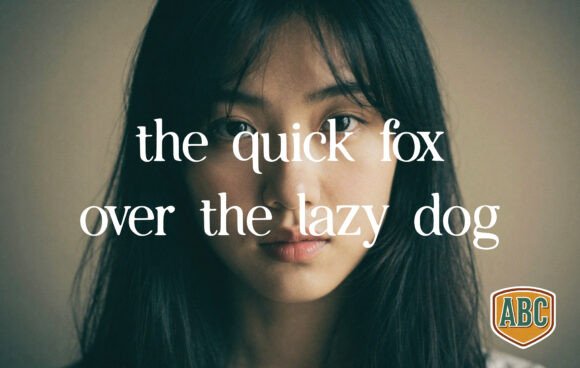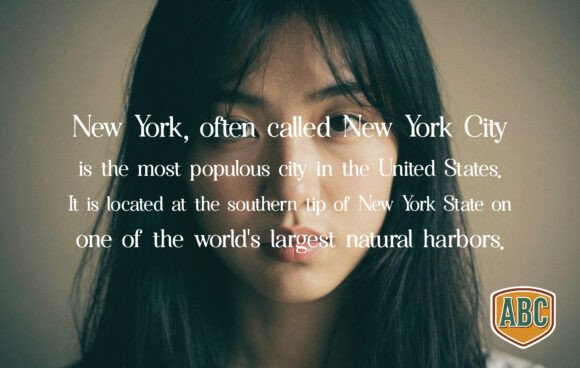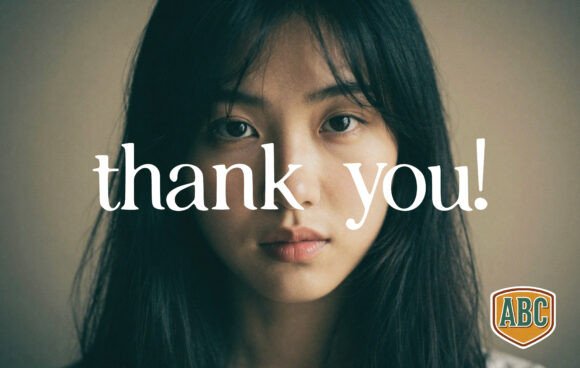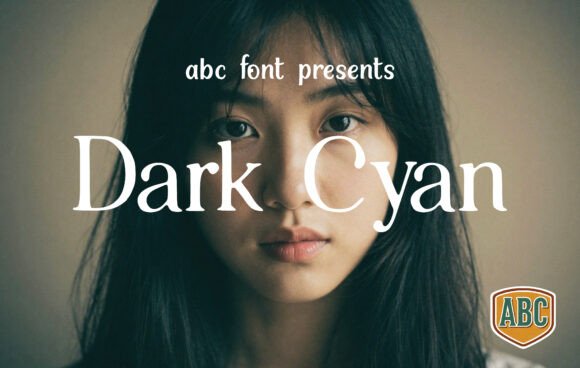
Elevate Your Visual Storytelling with Dark Cyan Font
In the world of typography, a well-crafted font can elevate your visual storytelling and make your message shine. Introducing Dark Cyan, a refined serif font that embodies modern sophistication and timeless grace. This exceptional typeface is designed to provide a polished, high-fashion look, making it an ideal choice for designers and crafters seeking to convey a sense of intelligence and understated luxury.
The Art of Elegance: Dark Cyan’s Design
Dark Cyan features elegant, high-contrast strokes and delicate serifs that provide a sophisticated aesthetic. The font’s balanced proportions and sharp details ensure a professional look, whether used in digital headers or traditional print media. The refined design of Dark Cyan makes it perfect for editorial designs, luxury branding, and any project requiring a touch of elegance.
Key Features of Dark Cyan
- Elegant Serif Design: Dark Cyan boasts a classic serif design with a modern twist, featuring high-contrast strokes and delicate serifs.
- Balanced Proportions: The font’s balanced proportions ensure a harmonious and professional aesthetic, making it suitable for a wide range of applications.
- Sharp Details: Dark Cyan’s sharp details provide clarity and impact, making it perfect for editorial designs, luxury branding, and high-end projects.
- Versatility: This refined serif font is suitable for both digital and print media, including headers, titles, and body text.
Applications of Dark Cyan
Dark Cyan is an exceptional choice for various design projects, including:
- Editorial Designs: Elevate your magazine, newspaper, or book designs with Dark Cyan’s elegant and sophisticated aesthetic.
- Luxury Branding: Convey a sense of intelligence and understated luxury with Dark Cyan’s refined serif design.
- Digital Headers: Make a statement with Dark Cyan’s sharp details and elegant strokes in your website headers, social media graphics, or digital advertisements.
- Traditional Print Media: Add a touch of sophistication to your brochures, flyers, or business cards with Dark Cyan’s polished aesthetic.
Why Choose Dark Cyan?
If you’re looking for a font that embodies modern sophistication and timeless grace, Dark Cyan is the perfect choice. This refined serif font provides:
- Clarity and Impact: Dark Cyan’s sharp details and elegant strokes ensure your message is conveyed with clarity and impact.
- Professional Aesthetic: The font’s balanced proportions and refined design provide a professional look, making it suitable for high-end projects.
- Versatility: Dark Cyan is suitable for a wide range of applications, from digital headers to traditional print media.
Dark Cyan is a refined serif font that offers a polished, high-fashion look, making it perfect for designers and crafters seeking to elevate their visual storytelling. With its elegant design, balanced proportions, and sharp details, Dark Cyan provides the perfect typographic voice for conveying intelligence and understated luxury. Whether used in editorial designs, luxury branding, or digital headers, Dark Cyan is an exceptional choice for any project requiring a touch of sophistication.